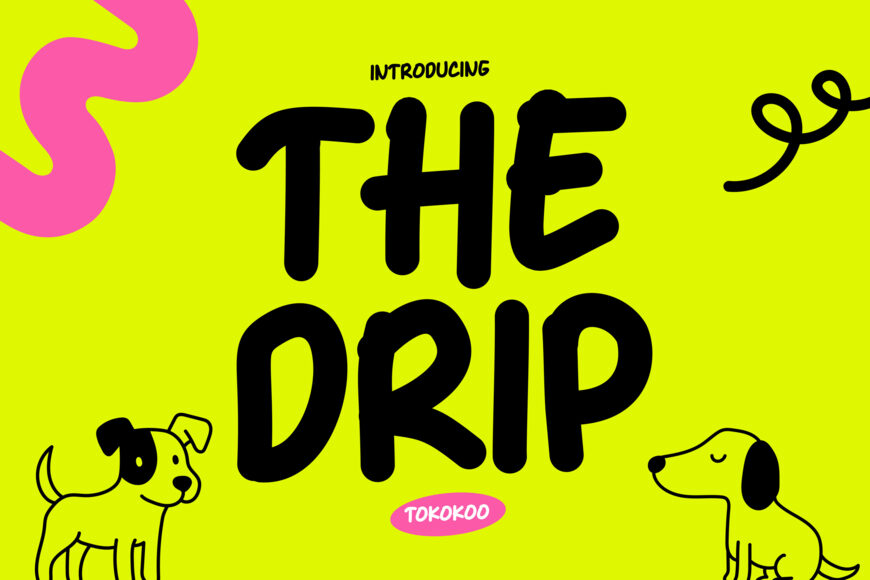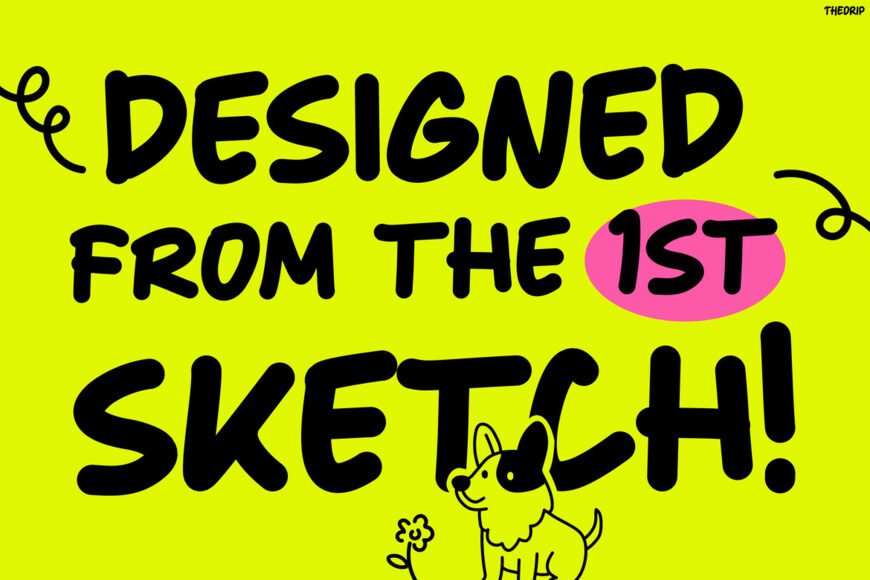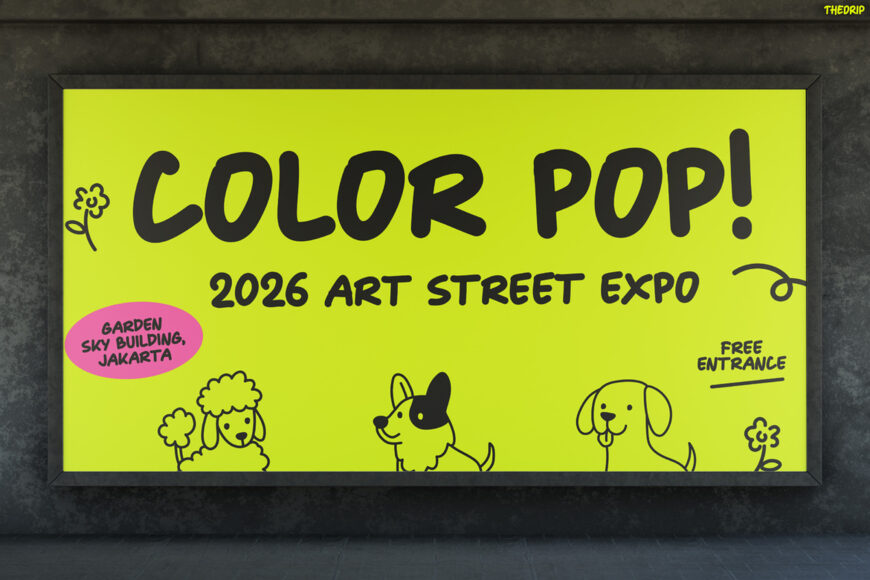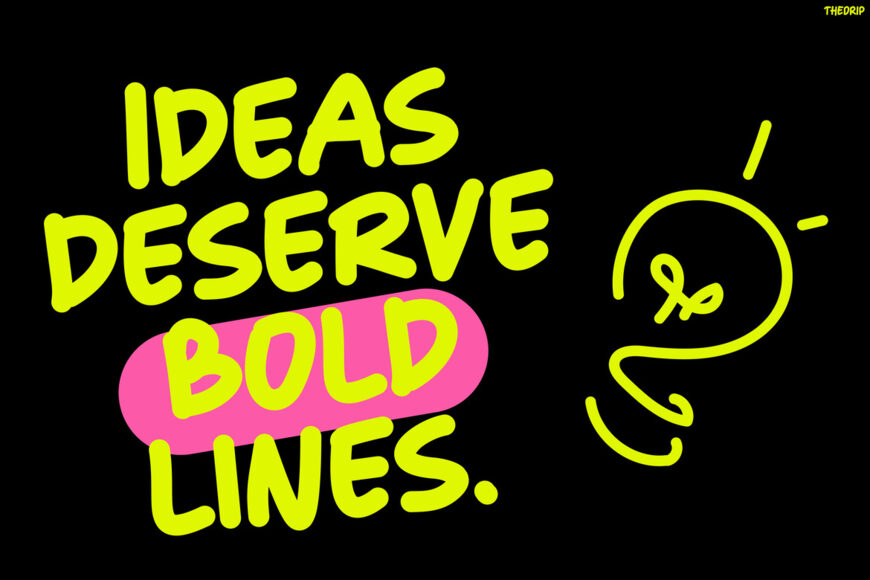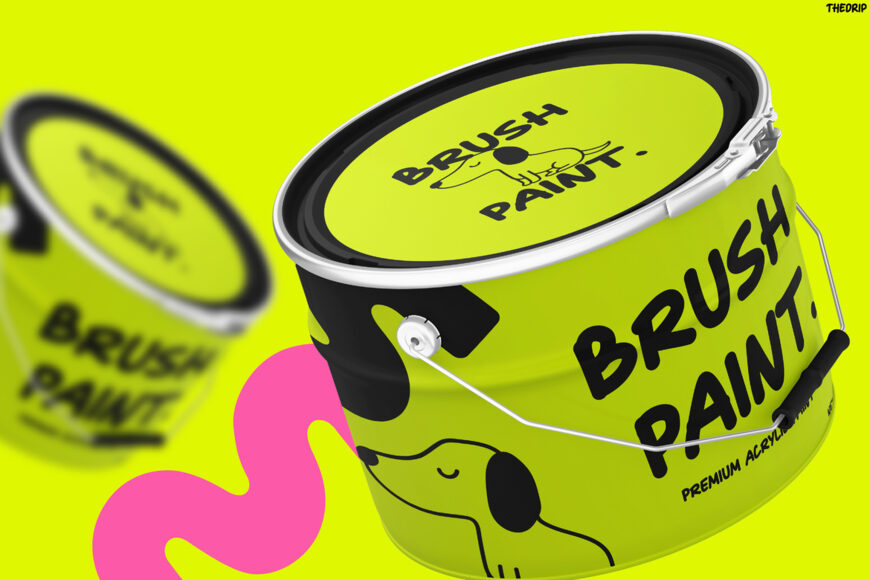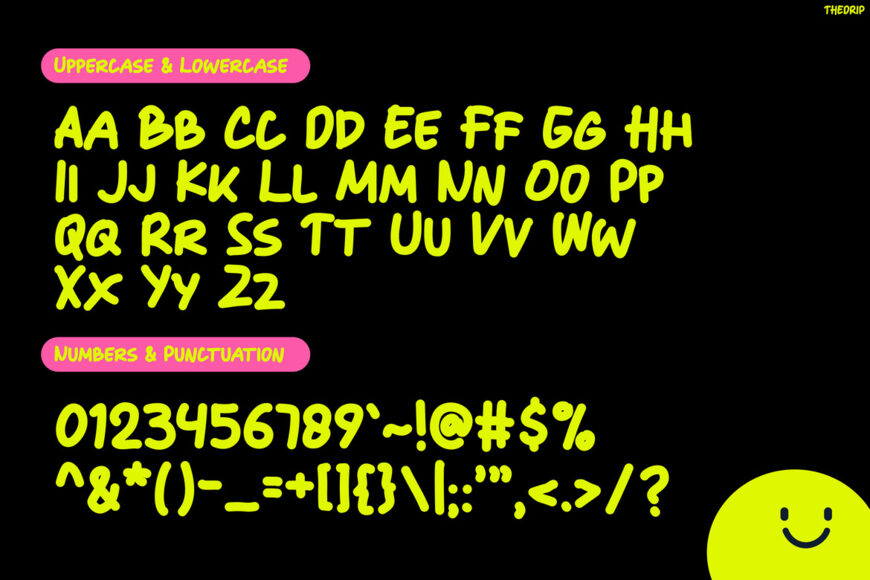
THEDRIP is a bold graffiti-inspired display font bursting with playful energy and creative attitude. Featuring chunky handwritten letterforms, smooth curves, and expressive strokes, it delivers a fresh street-style look that’s impossible to ignore. Moreover, its vibrant personality instantly grabs attention while keeping every word clear and readable. As a result, your headlines feel louder, bolder, and packed with youthful excitement.